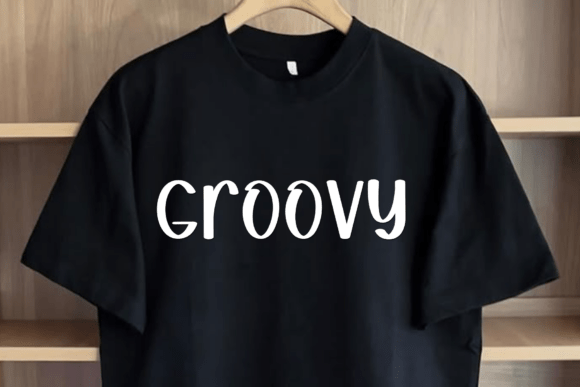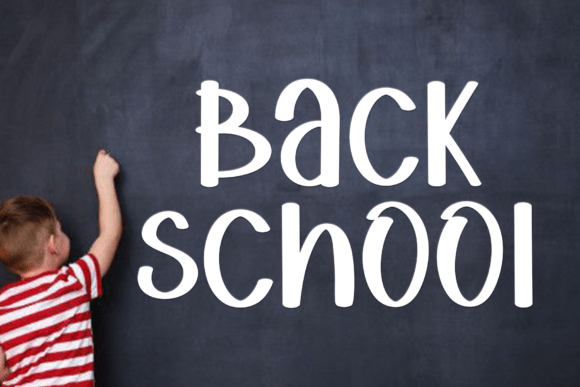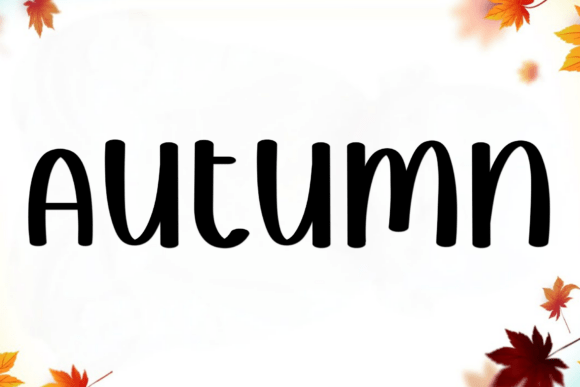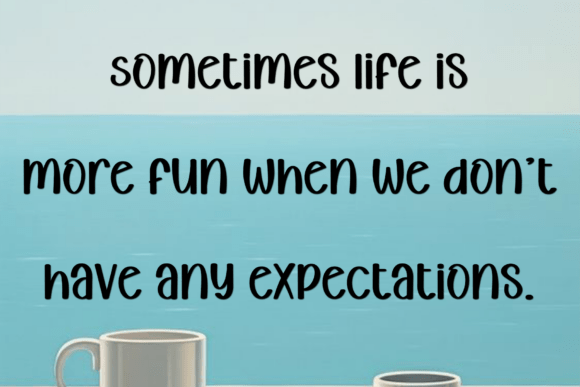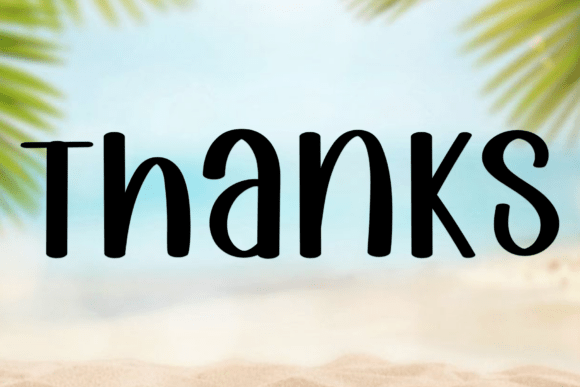
Camila Holiday Font: Add a Touch of Magic to Your Holiday Designs
The holiday season is upon us, and with it comes the need for festive and merry designs that capture the spirit of the season. If you’re a designer or crafter looking for a font that embodies the whimsy and enchantment of the holidays, look no further than Camila Holiday Font. This beautiful typeface is perfect for adding a touch of magic to your holiday-themed projects, from greeting cards and gift tags to festive posters and social media graphics.
Camila Holiday Font is a decorative typeface that is specifically designed to evoke the feeling of the holiday season. With its intricate details and whimsical flair, this font is sure to add a touch of enchantment to your designs. The font features a range of decorative elements, including snowflakes, holly leaves, and festive ornaments, which can be used to add a touch of personality to your typography.
Camila Holiday Font is perfect for a wide range of holiday-themed projects, including:
- Greeting cards: Add a touch of magic to your holiday greeting cards with this festive font.
- Gift tags: Make your gift tags stand out with this beautiful and decorative typeface.
- Holiday posters: Create eye-catching posters for your holiday events or promotions with Camila Holiday Font.
- Social media graphics: Add a touch of festive flair to your social media graphics and make them stand out.
One of the best things about Camila Holiday Font is that it is PUA (Private Use Area) encoded, which means that you can access all of the amazing glyphs and ligatures with ease. This makes it easy to add decorative elements to your typography, without having to worry about complicated design software or technical expertise.
Bring a Cheerful and Nostalgic Ambiance to Your Words
Camila Holiday Font is designed to bring a cheerful and nostalgic ambiance to your words. With its festive and merry design, this font is sure to evoke the feeling of the holiday season and add a touch of warmth and personality to your designs. Whether you’re creating holiday-themed designs for personal or professional use, this font is sure to be a hit.
Why Choose Camila Holiday Font?
There are many holiday-themed fonts available, but Camila Holiday Font stands out for several reasons:
- Unique design: This font features a unique and decorative design that is sure to make your holiday-themed designs stand out.
- Easy to use: With its PUA encoding, this font is easy to use and accessible to designers of all skill levels.
- Versatile: This font can be used for a wide range of holiday-themed projects, from greeting cards and gift tags to festive posters and social media graphics.
Tips for Using Camila Holiday Font
Here are a few tips for using Camila Holiday Font in your designs:
- Experiment with different sizes and colors to add depth and interest to your designs.
- Use the decorative elements to add a touch of personality to your typography.
- Pair this font with other festive fonts or graphics to create a cohesive and eye-catching design.
Camila Holiday Font is a beautiful and festive typeface that is perfect for adding a touch of magic to your holiday-themed designs. With its decorative elements and whimsical flair, this font is sure to evoke the feeling of the holiday season and add a touch of warmth and personality to your words. Whether you’re a designer or crafter, this font is sure to be a hit. So why wait? Download Camila Holiday Font today and start creating your own festive and merry designs!